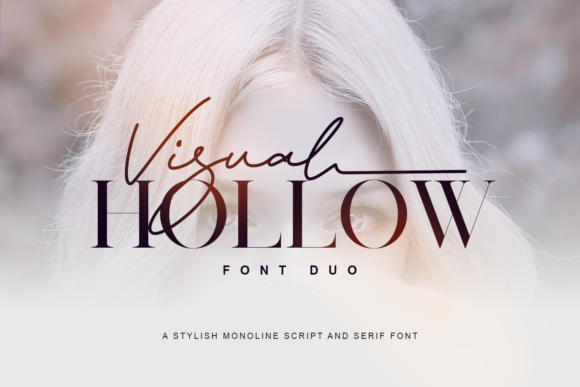
Behold Visual Hollow, a duo font that's a visual masterpiece, a symphony of exquisite lines. This font is a true chameleon, effortlessly adapting to diverse designs, elevating them to new heights. Explore the depths of its serif and script forms, each a work of art, waiting to transform your creative visions into captivating realities. Let Visual Hollow breathe life into your projects, making them shine with an aura of elegance and sophistication. Embrace the boundless possibilities of Visual Hollow and witness the transformation of your designs into breathtaking masterpieces.
With Visual Hollow, your designs will dance with grace and charm. Its elegant serifs convey a sense of timeless beauty, while the flowing script adds a touch of whimsy and playfulness. Picture your designs adorned with Visual Hollow, captivating your audience with its enchanting allure. This font is not just a tool; it's an experience, an invitation to immerse yourself in a world of creativity and expression. Allow Visual Hollow to ignite your imagination and craft designs that leave a lasting impression.
Visual Hollow is your perfect companion for creating stunning logos, eye-catching posters, and memorable branding materials. Its versatility knows no bounds, as it seamlessly blends with various design aesthetics. Unleash your creativity and explore the endless possibilities that await you with Visual Hollow. Transform your designs into captivating works of art, leaving your audience mesmerized and inspired. Discover the power of Visual Hollow and embark on a creative journey that will forever change the way you design.